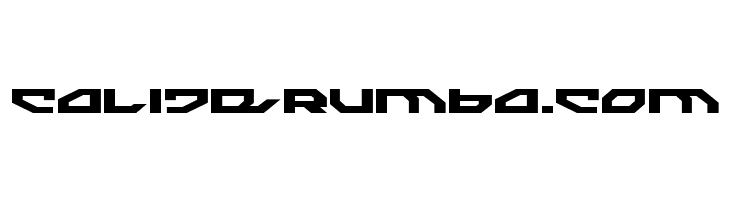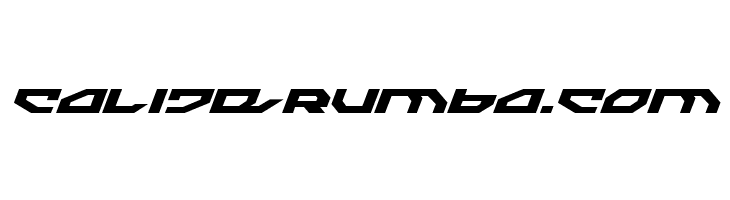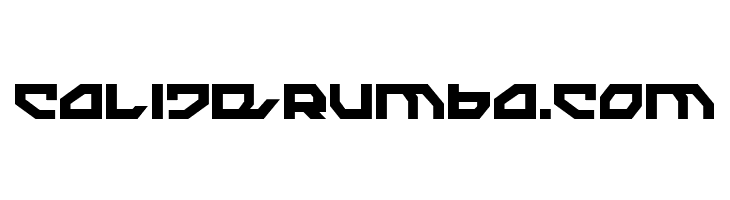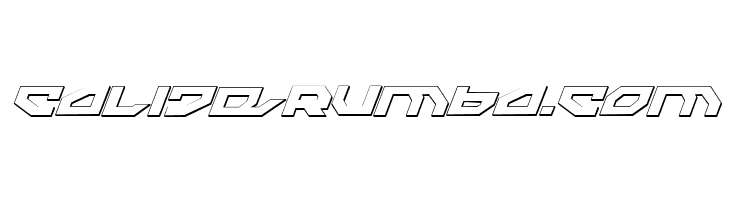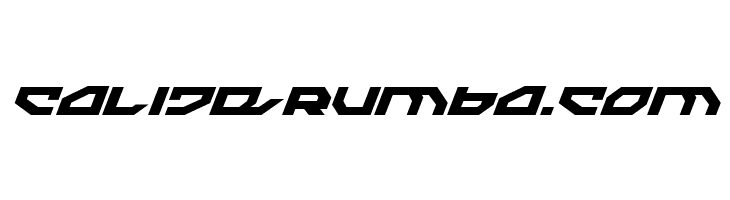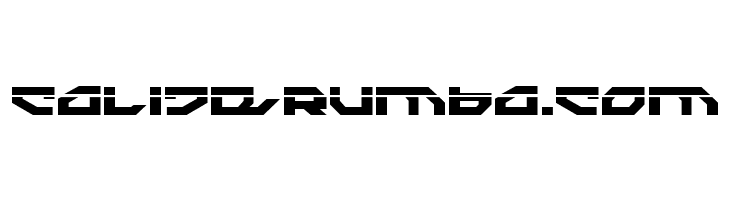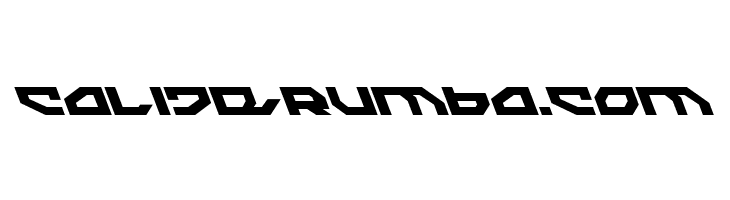
A bold, futuristic font with sharp, angular shapes.
A bold, futuristic font with sharp angles and an italicized style.
A futuristic, angular italic font with a bold, high-tech design.
A futuristic, angular font with a dynamic slant and outline style.
A bold, italicized font with a futuristic and angular design.
A futuristic, angular font with bold geometric shapes.